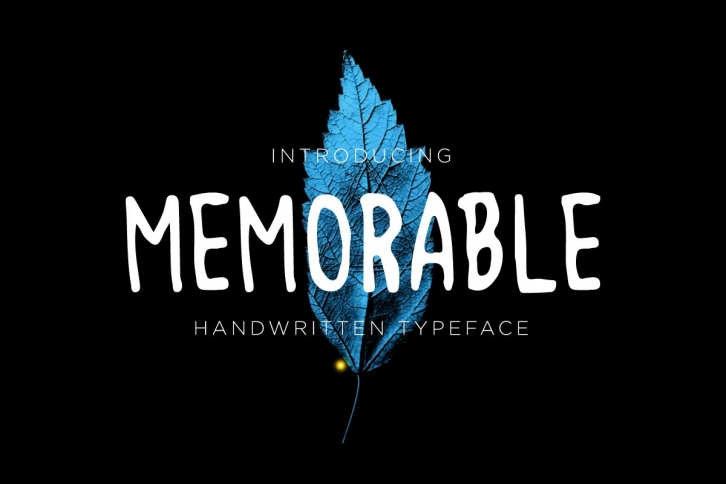
Memorable is a gorgeous font that was realeased on June 23, 2017. The font can be used in many style contexts and design environments. Perfect for invitations, magazines, websites, logos, and more! It was designed by Kang1993 and the file size is 21.83 MB. Thanks for checking out this font!